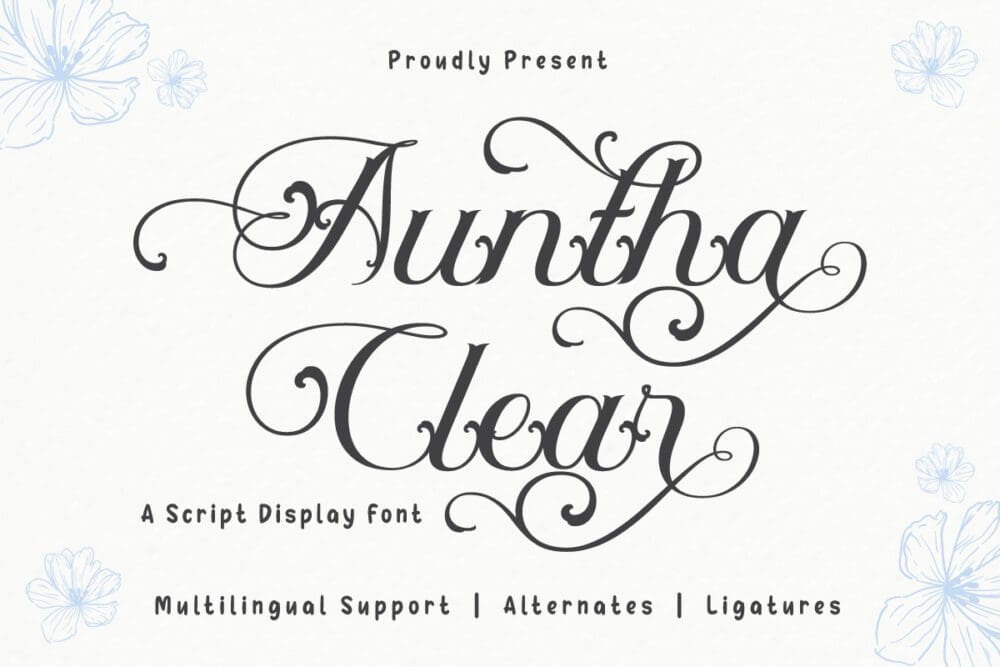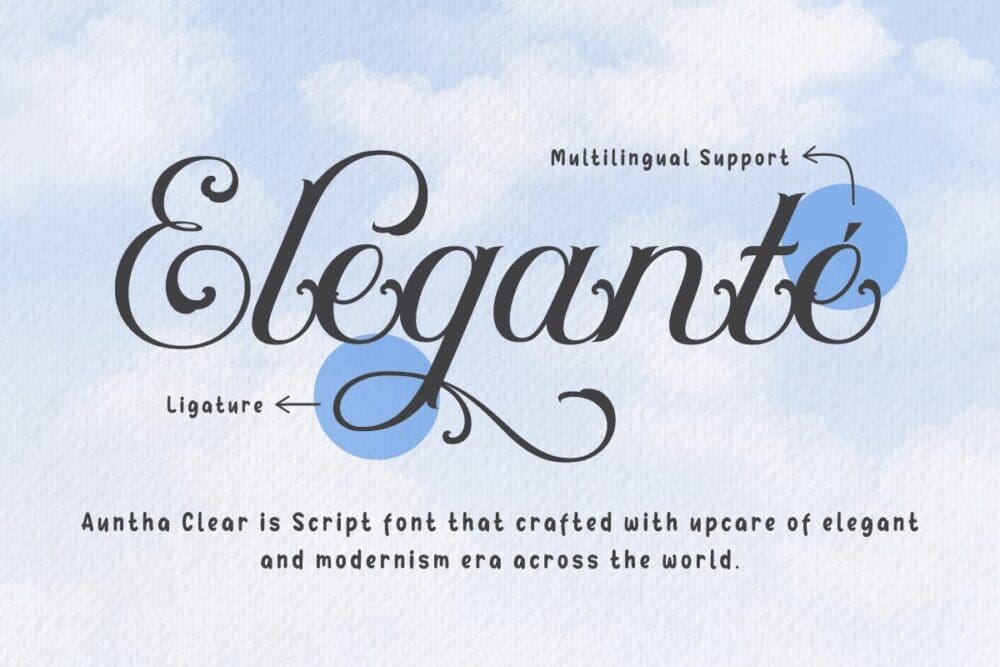
Auntha Font
Auntha Clear is an artistic touch that translates into stunning Script typography. This font is your constant companion for projects that need a pretty, modern, and playful touch. Its classy style and soft knot make Auntha Clear perfect for a variety of needs, from logo designs to greeting cards. With its flexibility, this font is able to adapt to every theme and message you want to convey. However, Auntha Clear is more than just a visual beauty. Features like ligature and alternate give your creativity a new dimension. You can freely explore the variety of characters that make your design even more unique.